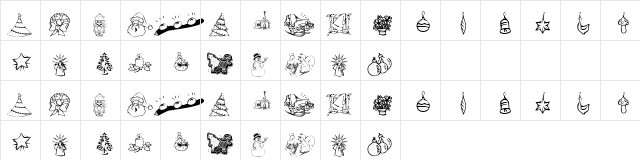
KR Christmas Dings 2004 Two Regular
Design Context for KR Christmas Dings 2004 Two Typeface
KR Christmas Dings 2004 Two is a composed and adaptable typeface that performs quietly and consistently across a wide range of design contexts.